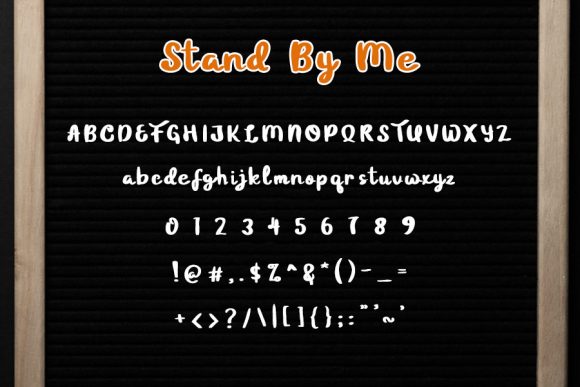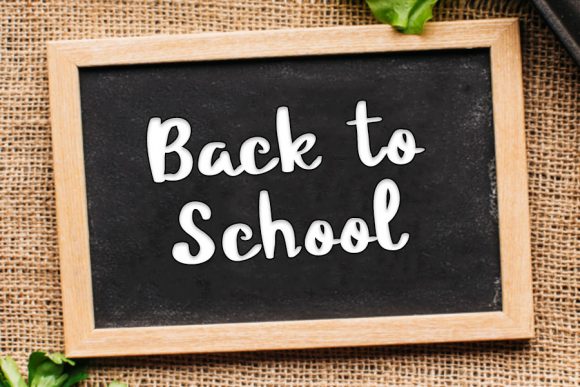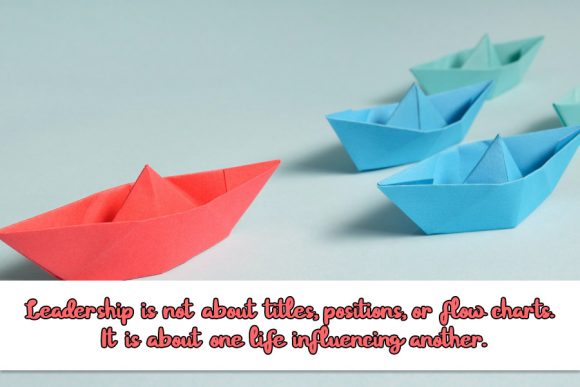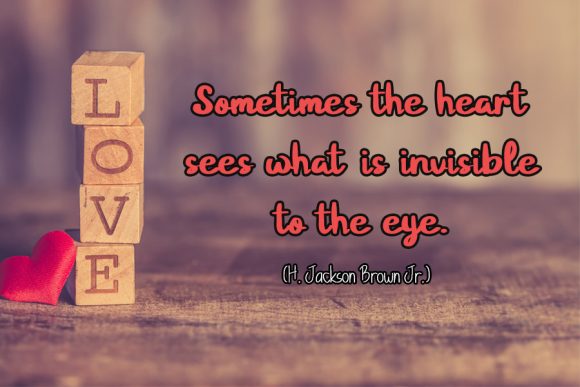
Stand by Me Font
Stand By Me is a sweet, flowing and festive handwritten font. This gentle font will look gorgeous on a variety of design ideas. It will add a joyful and romantic touch to each of your projects!